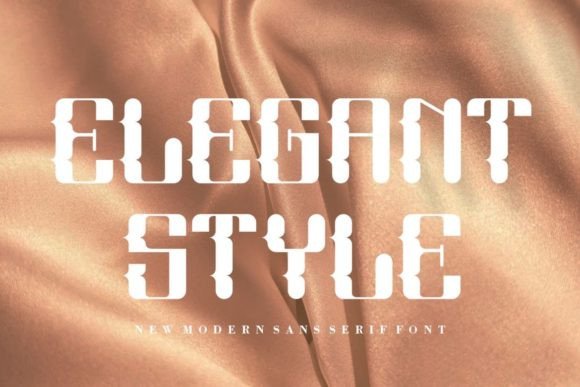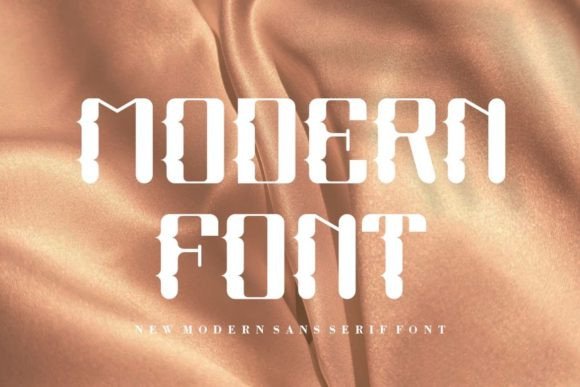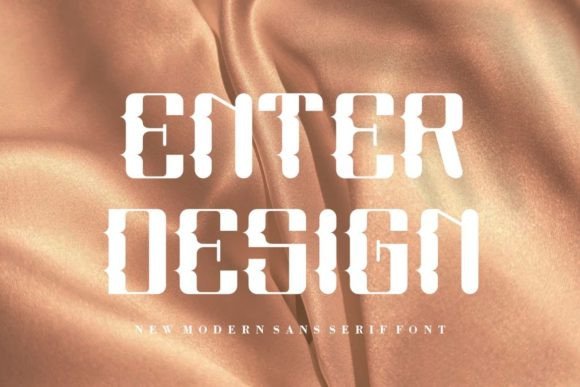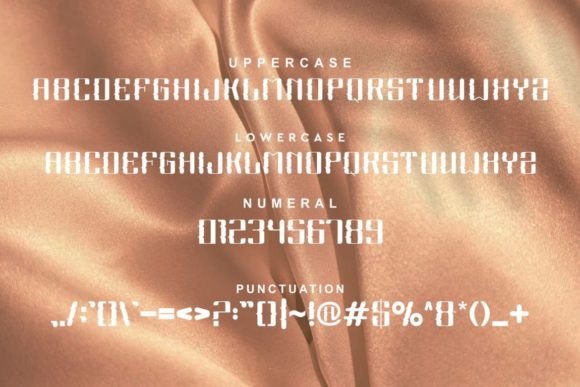
Introduction to Destore Font
Destore is a bold and authentic display font.
The font is suitable for any branding project like logo, t-shirt printing, export, and many more It will look outstanding in a wide range of contexts.
Destore Font offers exceptional quality and versatility, making it a valuable addition to your design toolkit. Whether you’re creating for personal projects or commercial use, Destore Font delivers professional results.